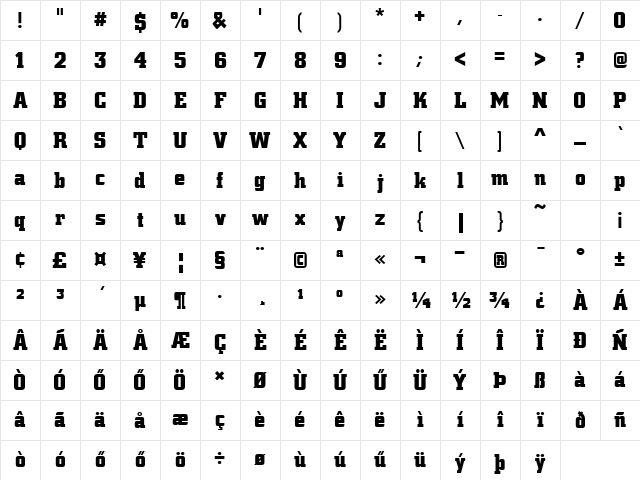
H_CityDBol Regular
Design Context for H_CityDBol
H_CityDBol is a composed and adaptable typeface that performs quietly and consistently across a wide range of design contexts.